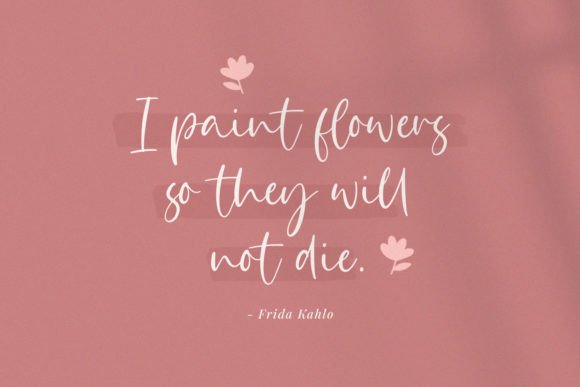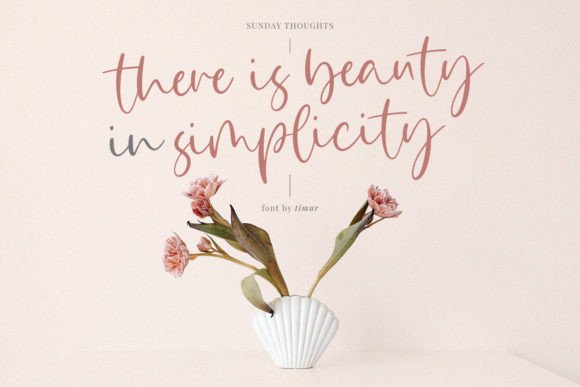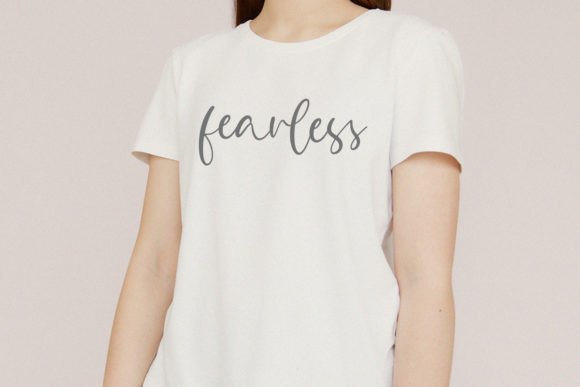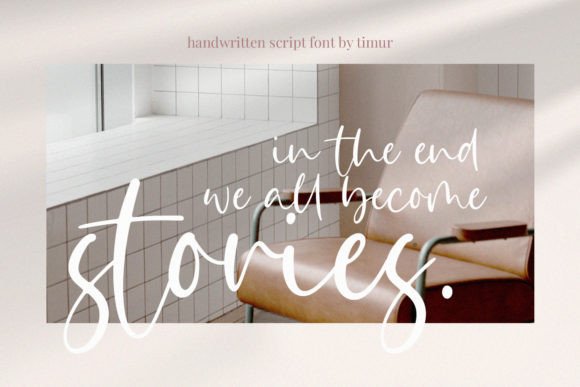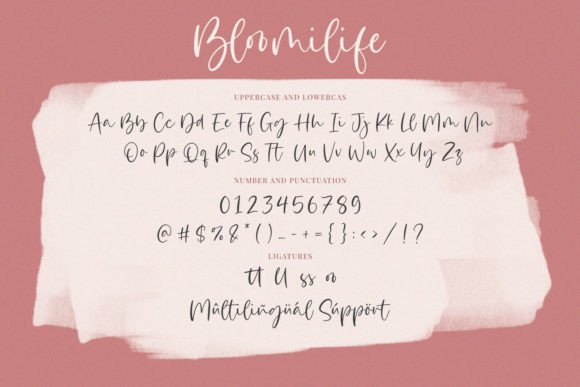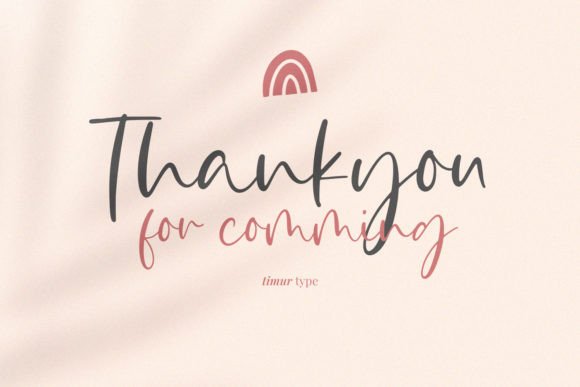
Unleash Your Creativity with the Bloomilife Font
Have you ever been stuck in a creative rut, staring blankly at your computer screen, desperate for inspiration? We’ve all been there. But sometimes, all it takes is a fresh font to spark a new idea. For designers, the right font can be the difference between a mediocre project and a masterpiece. And that’s exactly what the Bloomilife Font aims to deliver – a dazzling script font that’s sure to elevate any creation.
Bloomilife Font is more than just a pretty face – it’s a tool designed to help you express yourself with elegance and sophistication. Whether you’re designing a wedding invitation, a children’s book, or a logo for a new business, this font is the perfect companion to help you bring your vision to life.
Bloomilife Font Key Features
- Character Set: This elegant script font features a comprehensive character set, including uppercase and lowercase letters, numerals, punctuation marks, and special characters, making it suitable for various design projects.
- Unique Characteristics: This beautiful script font boasts a flowing, handwritten style with subtle flourishes and connecting strokes, adding a touch of elegance and sophistication to any design.
Bloomilife Font Review
As a designer, I was excited to dive into the Bloomilife Font, and I must say it has some lovely qualities. ✨ The delicate floral patterns and intricate details make it perfect for designs that need a touch of elegance and sophistication. It’s ideal for branding, invitations, and other materials where you want to convey a sense of refinement.
- Unique and eye-catching design
- Highly customizable for various design projects
- Compatible with a wide range of digital platforms
- May be difficult to read at smaller font sizes
- Not suitable for designs that require a bold or modern look
- Some letters may be difficult to distinguish from one another
Overall, I think the Bloomilife Font is a beautiful addition to any designer’s toolkit. While it may have some limitations, its unique charm and versatility make it a great choice for the right projects. With a bit of creativity and experimentation, I’m confident that you’ll be able to get the most out of this lovely font.
For the most out of the Bloomilife font, use it for:
– Whimsical and playful designs
– Floral-inspired graphics and illustrations
– Handwritten-style text for a personal touch
– Branding and logo design for creative businesses